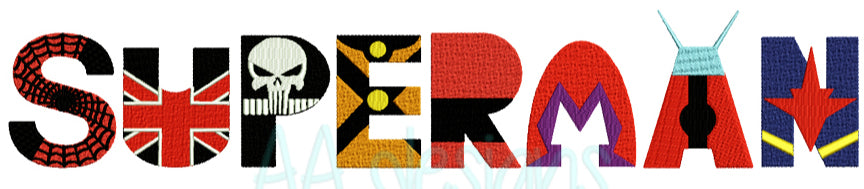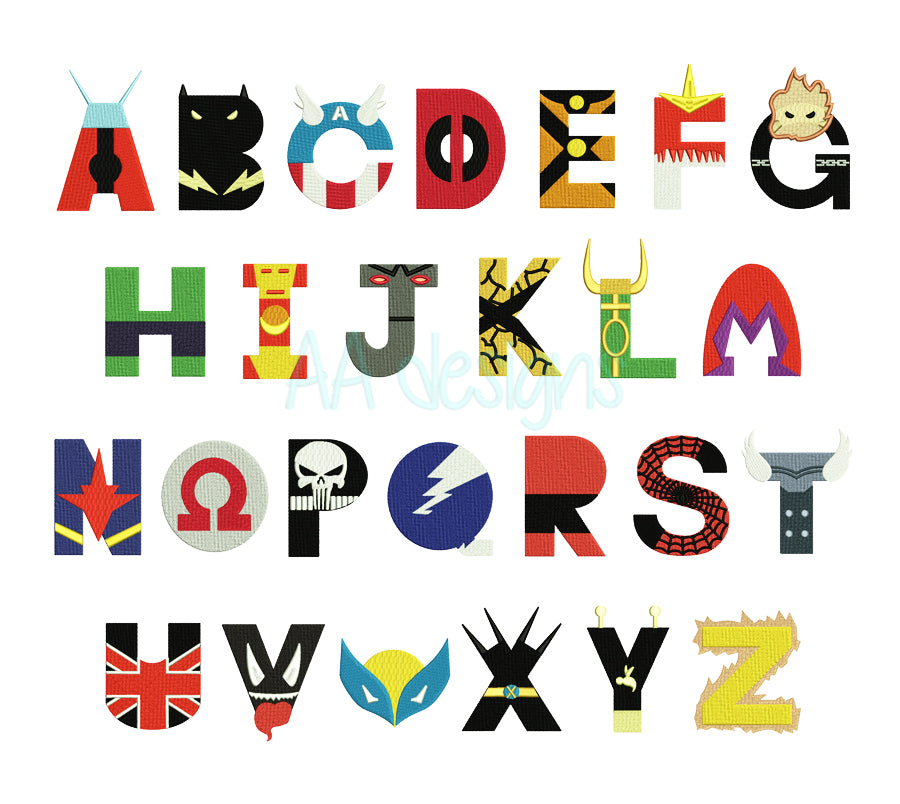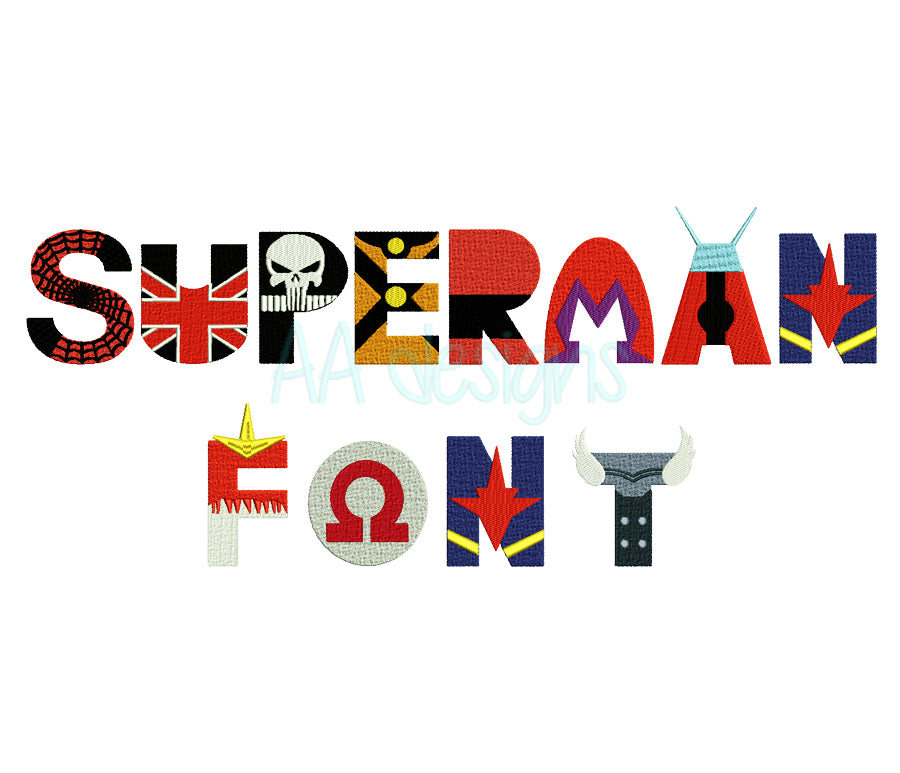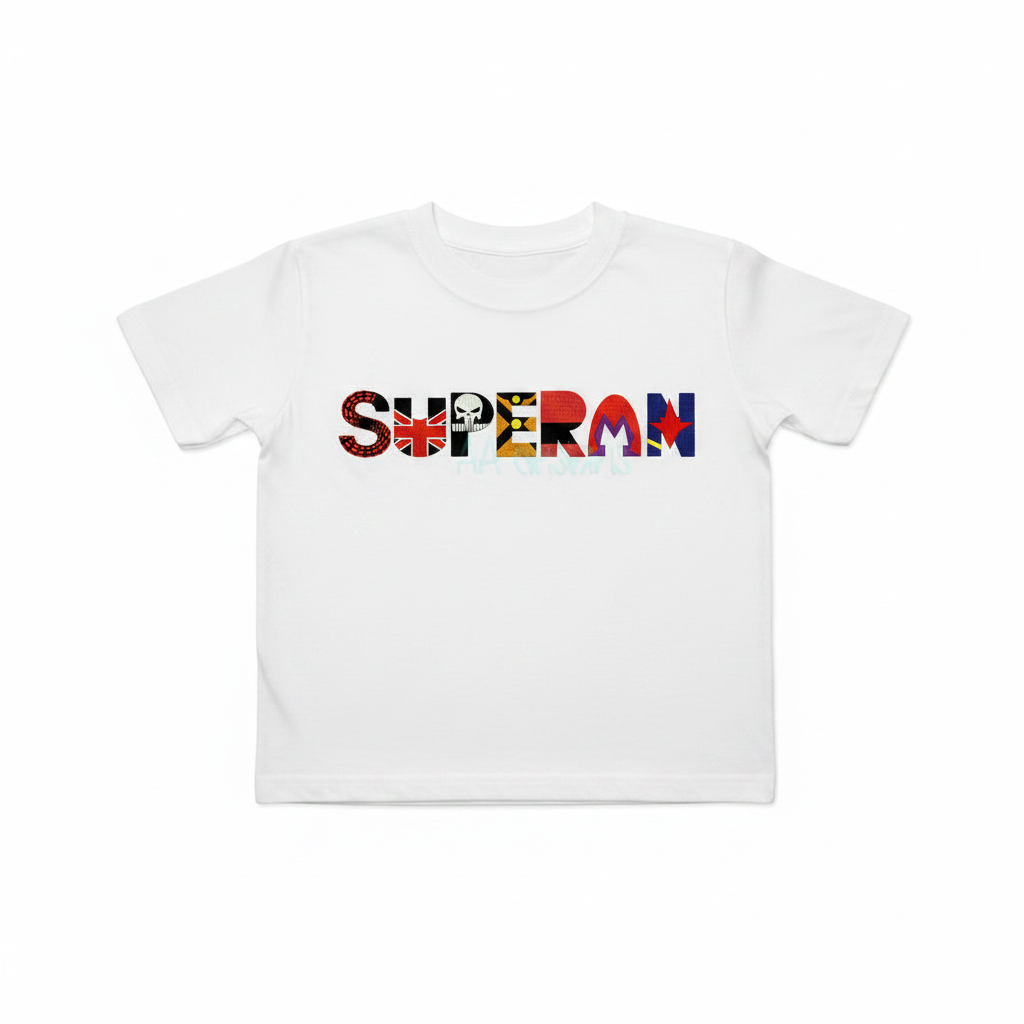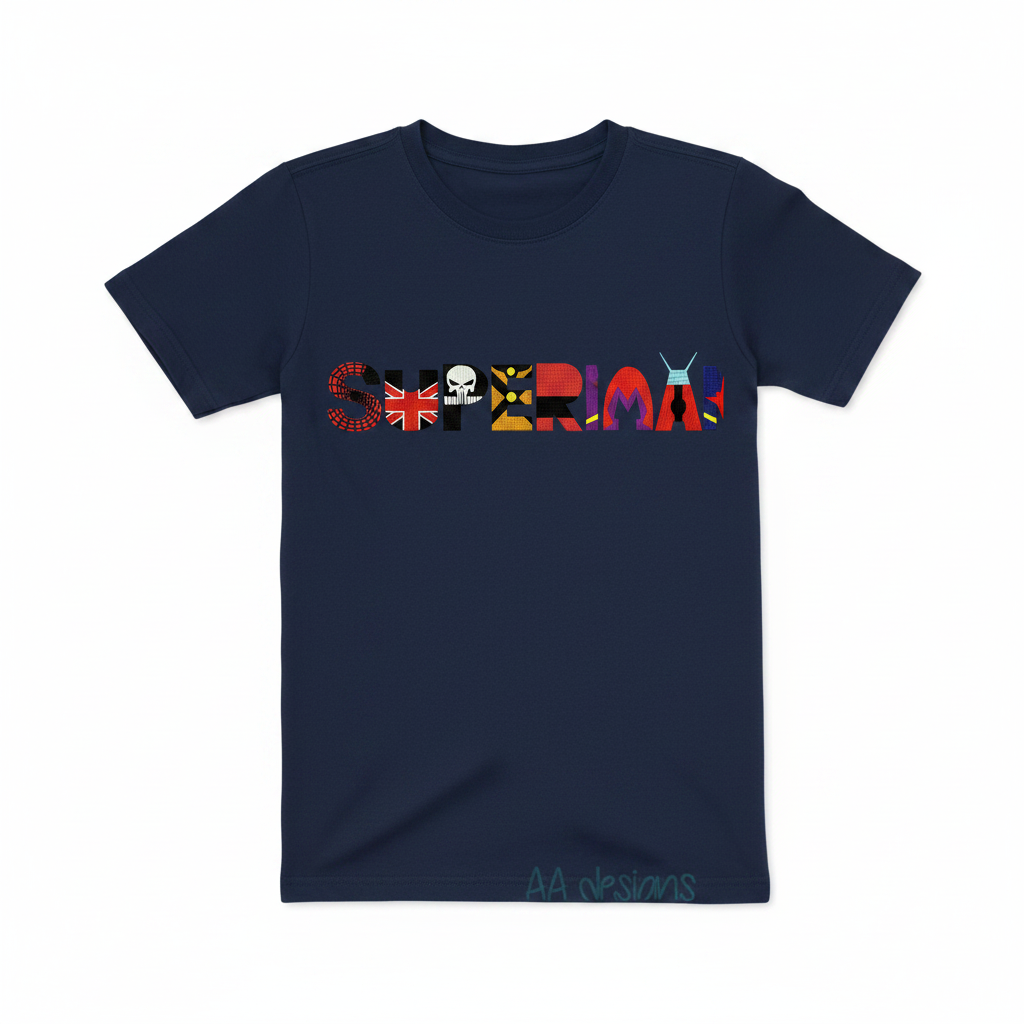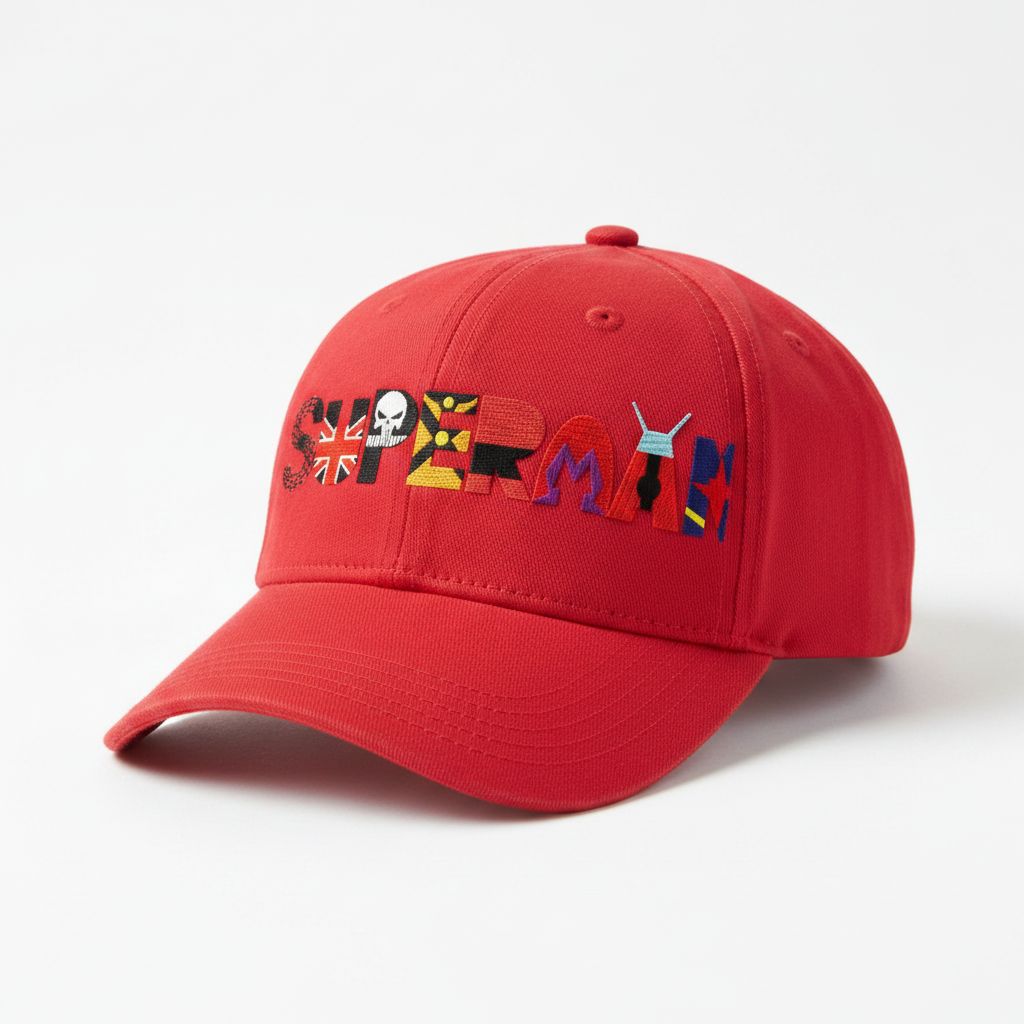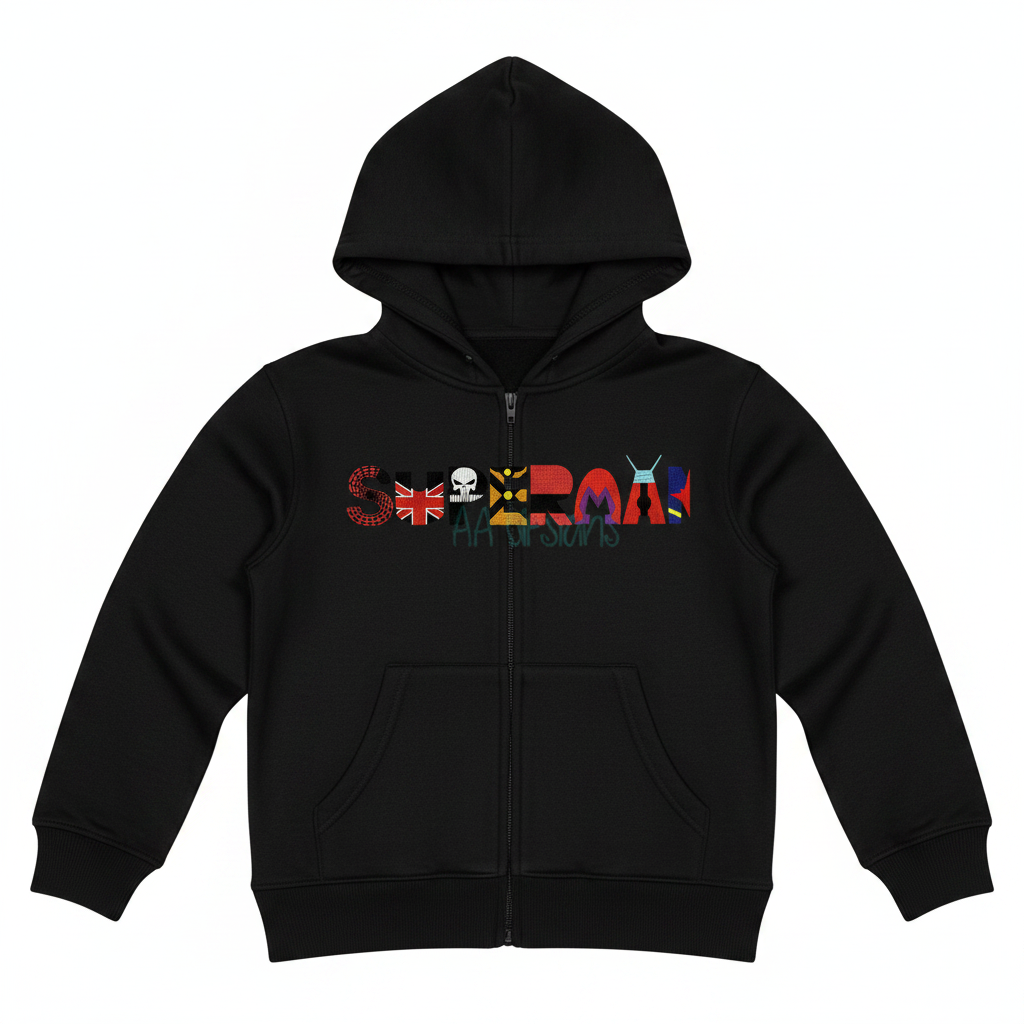
Superman Embroidery Font
Make every stitch a superpower with our bold Superman Embroidery Font — each letter is packed with iconic superhero designs including Spiderman, Union Jack, skull motifs, and more! Perfect for boys' clothing, caps, and accessories.
✨ Why You'll Love This Font
- Unique superhero-themed design in every letter
- Bold, detailed stitches that stand out on any fabric